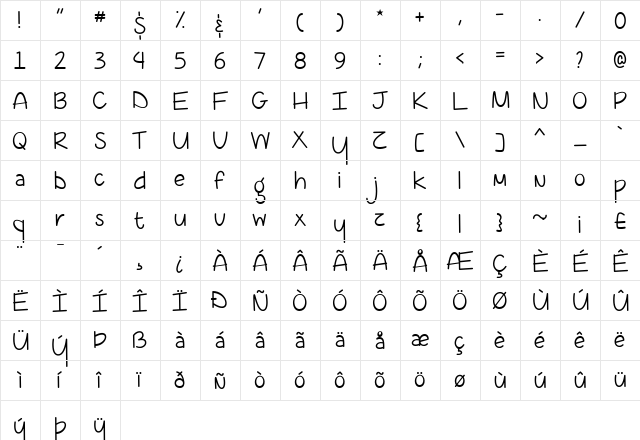
Coffee At Midnight Demo Regular
Design Context for Coffee At Midnight Demo Typeface
Coffee At Midnight Demo is a composed and adaptable typeface that performs quietly and consistently across a wide range of design contexts.